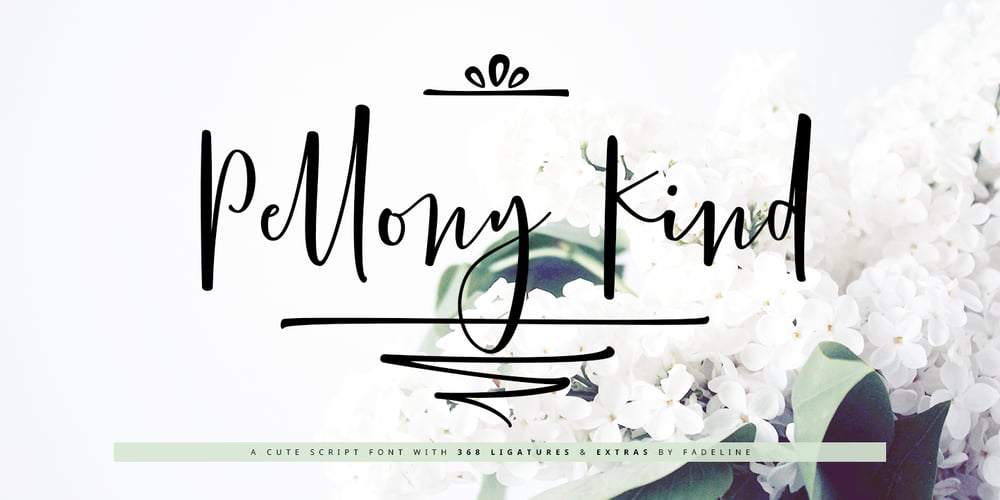
Pellony Kind
Pellony Kind font
Pellony Kind Font Family was designed by Juni Fadil Putra and published by FadeLine Studio. Pellony Kind contains 2 styles and family package options. This is a cute handwritten script. This font is created with a semibold handwriting style. Made with careful consideration, in order to create a comfortable impression when using it. And with available various types of ligatures make this font look natural. There are 572 glyphs in it and 368 of them are ligatures like is the current trend, it’s just that this font comes with a semibold style.With a style like this, this font will be suitable in use for logo’s, branding projects, homeware designs, product packaging, mugs, quotes, posters, shopping bags, logo’s, t-shirts, book covers, name card, invitation cards, greeting cards, and all your other lovely projects.